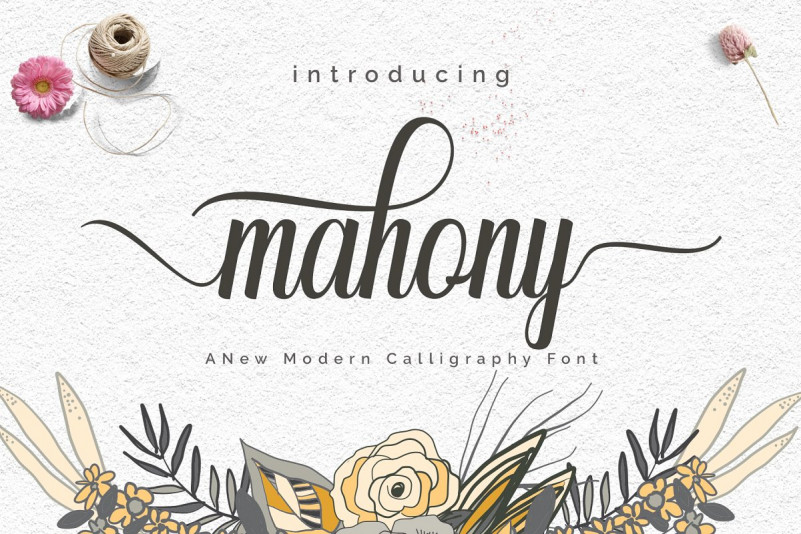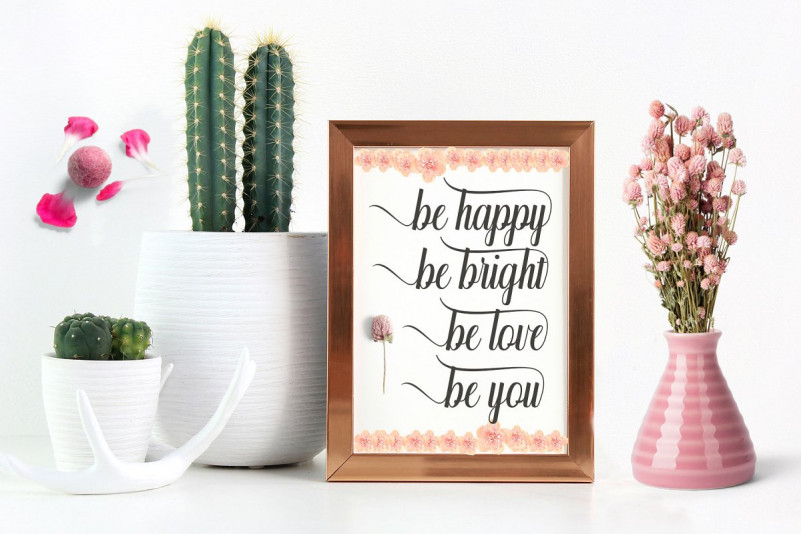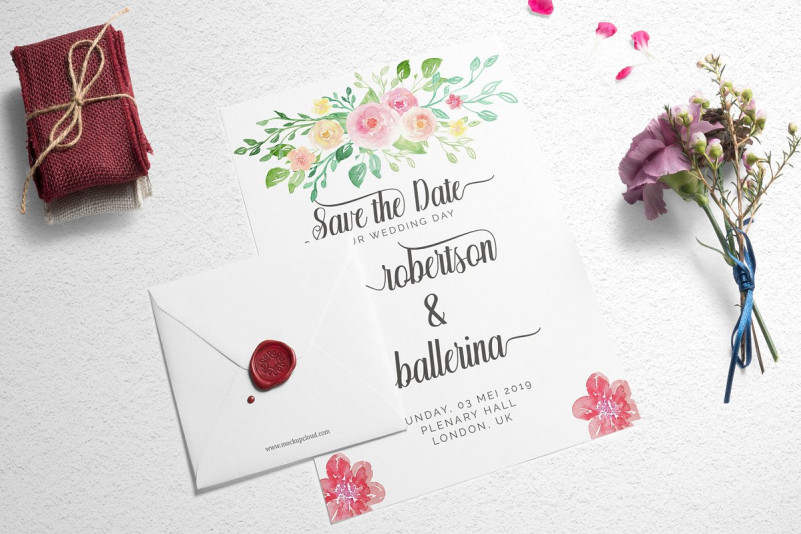
mahony Font
mahony script is a new modern calligraphy Typeface Fonts with combines from copperplate to contemporary typeface, classic, beauty and elegant touch.
mahony script is suitable for Apparel Brand, any greeting cards, Painting design style, or any design that needs natural and personal touch. Mix and match the alternate characters to add an attractive message to your design.